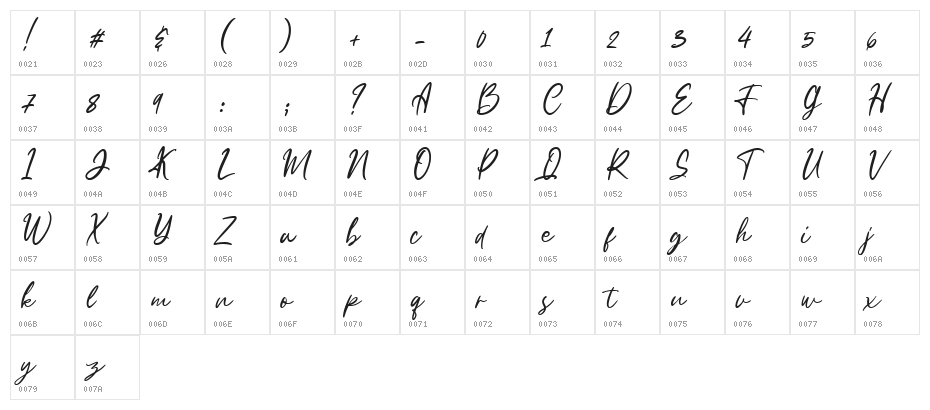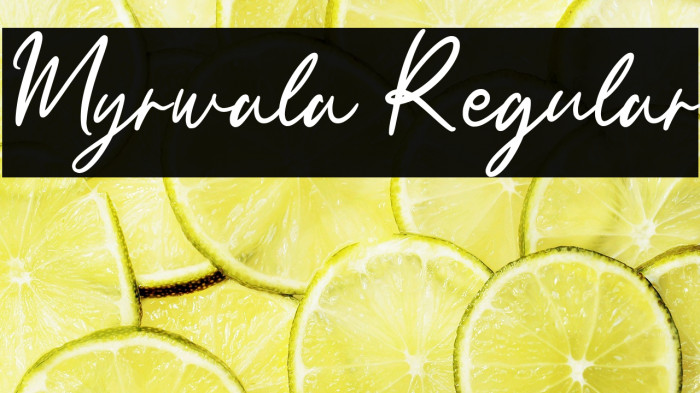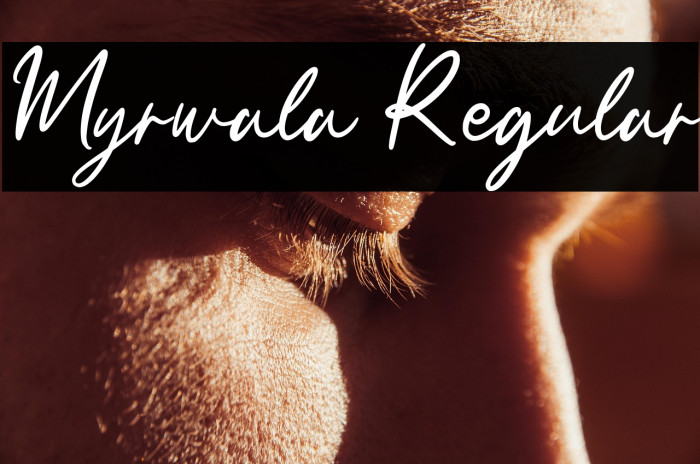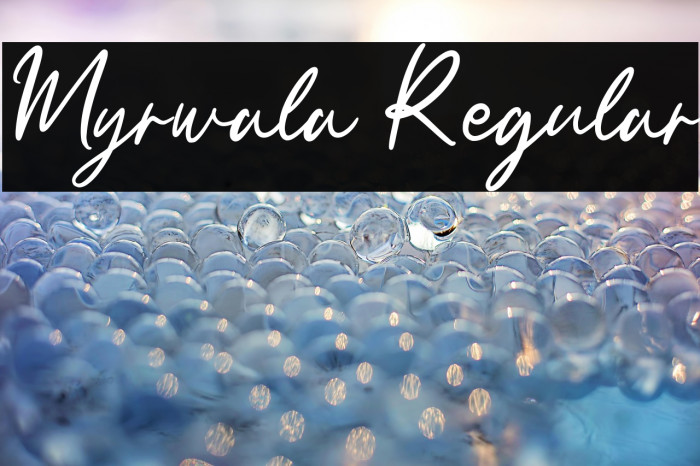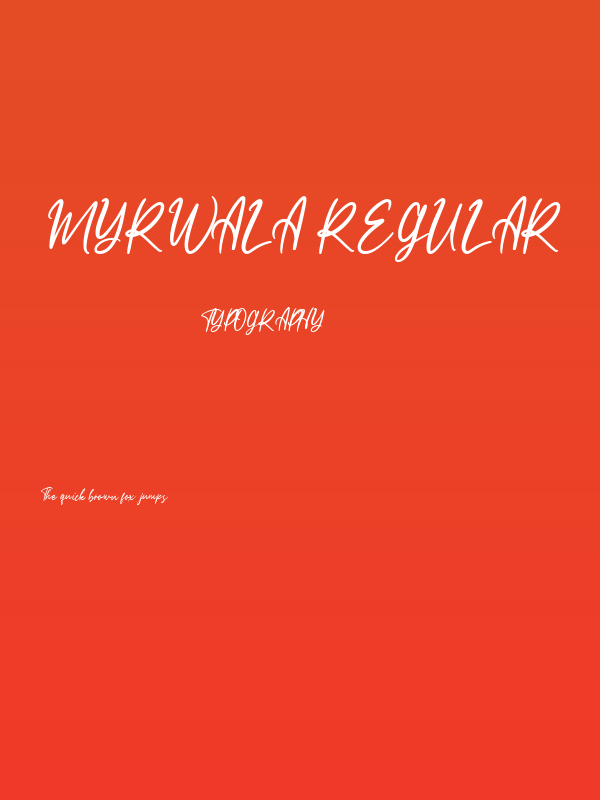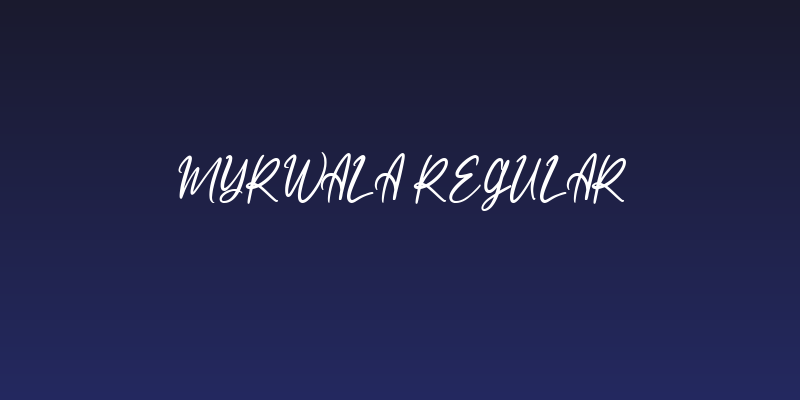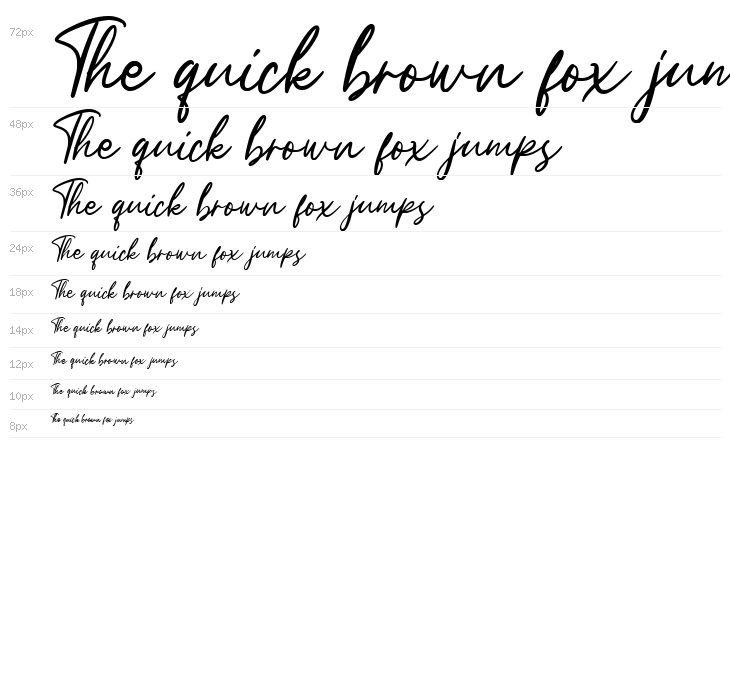
Myrwala Regular Font
Myrwala Regular Description
This font features a dynamic and flowing script style, characterized by its elegant and cursive letterforms. The uppercase letters exhibit a bold and confident stroke, with distinctive loops and flourishes that add a touch of sophistication. The lowercase letters maintain a consistent fluidity, enhancing readability while preserving the artistic flair. Numbers and special characters are crafted with the same attention to detail, ensuring a cohesive look across all glyphs. The overall design exudes a sense of elegance and creativity, making it suitable for projects that require a personal and artistic touch.